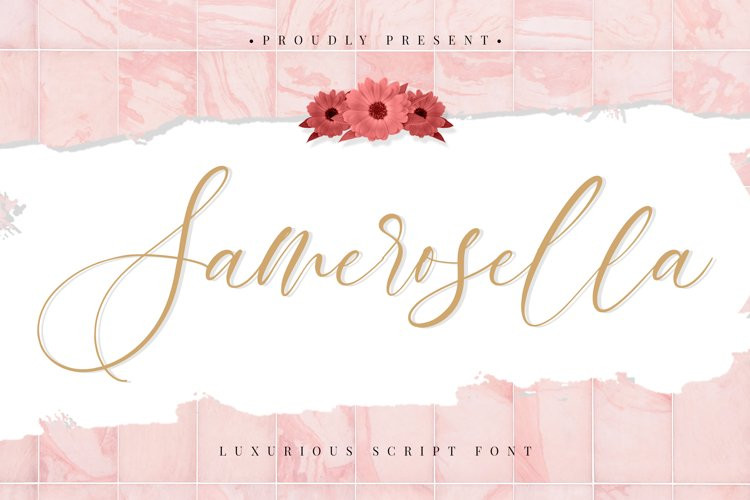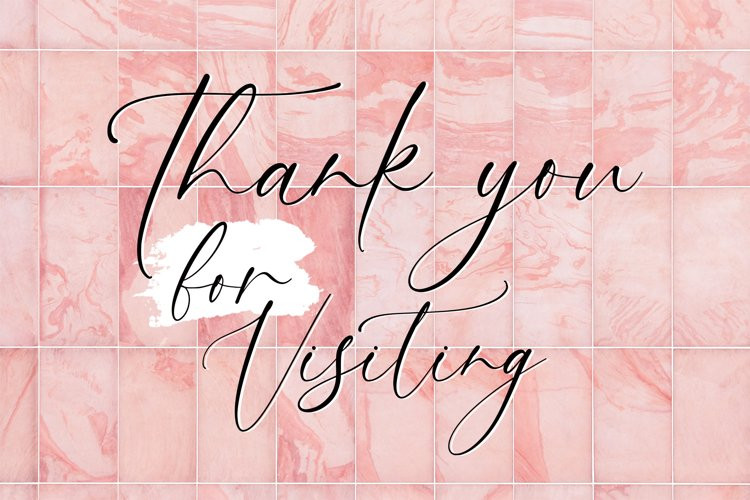
Samerosella Font
SamerosellaIntroducing Samerosella – Elegant Script is a Quality script that is written casually and quickly with 11 ligature and 8 Alternate Glyphs. beautiful natural touch for each details. It is perfect for any design project as Invitation,logo, book cover, craft or any design purposes.
Samerosella is perfect for homeware designs,branding projects, Logo, design, Quotes, Product packaging, Photography, Watermark